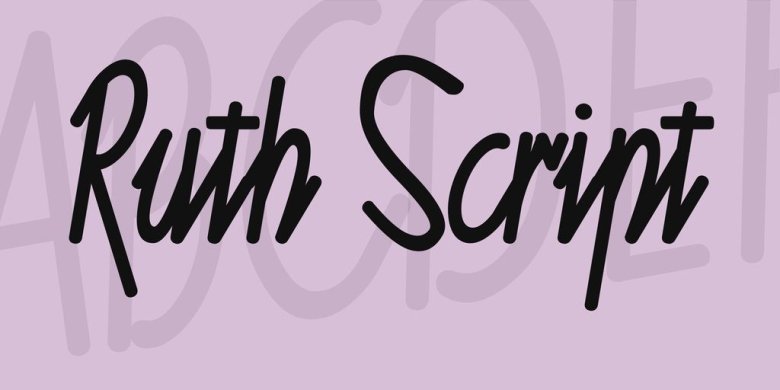
Ruth Calligraph Font
Ruth Script is perfect for neon signs, we took as referents some of these signs found in the street, especially those hanging in bars, billiard halls, motels and night clubs, we also took into consideration the Photo-lettering One Line manual to solve ligatures and alternatives (We want to thank Ed Ronthaler for that treasure to study and learn).
The scripts can be considered as a compendium of connections, aesthetic and functional alternatives, where all the possible word combination is a universe depending on the language and the user’s creativity.